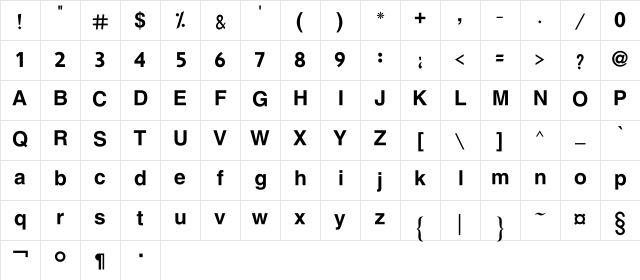
Urdu Web Naskh Regular Free Font
Urdu Web Naskh Regular
Foundry: Ishtiaq Ali Attari Qadri, Faisalabad, Pakistan.
Designer: Mr. Jamil-ur-Rehman
Design Context for Urdu Web Naskh
Urdu Web Naskh is a composed and adaptable typeface that performs quietly and consistently across a wide range of design contexts.